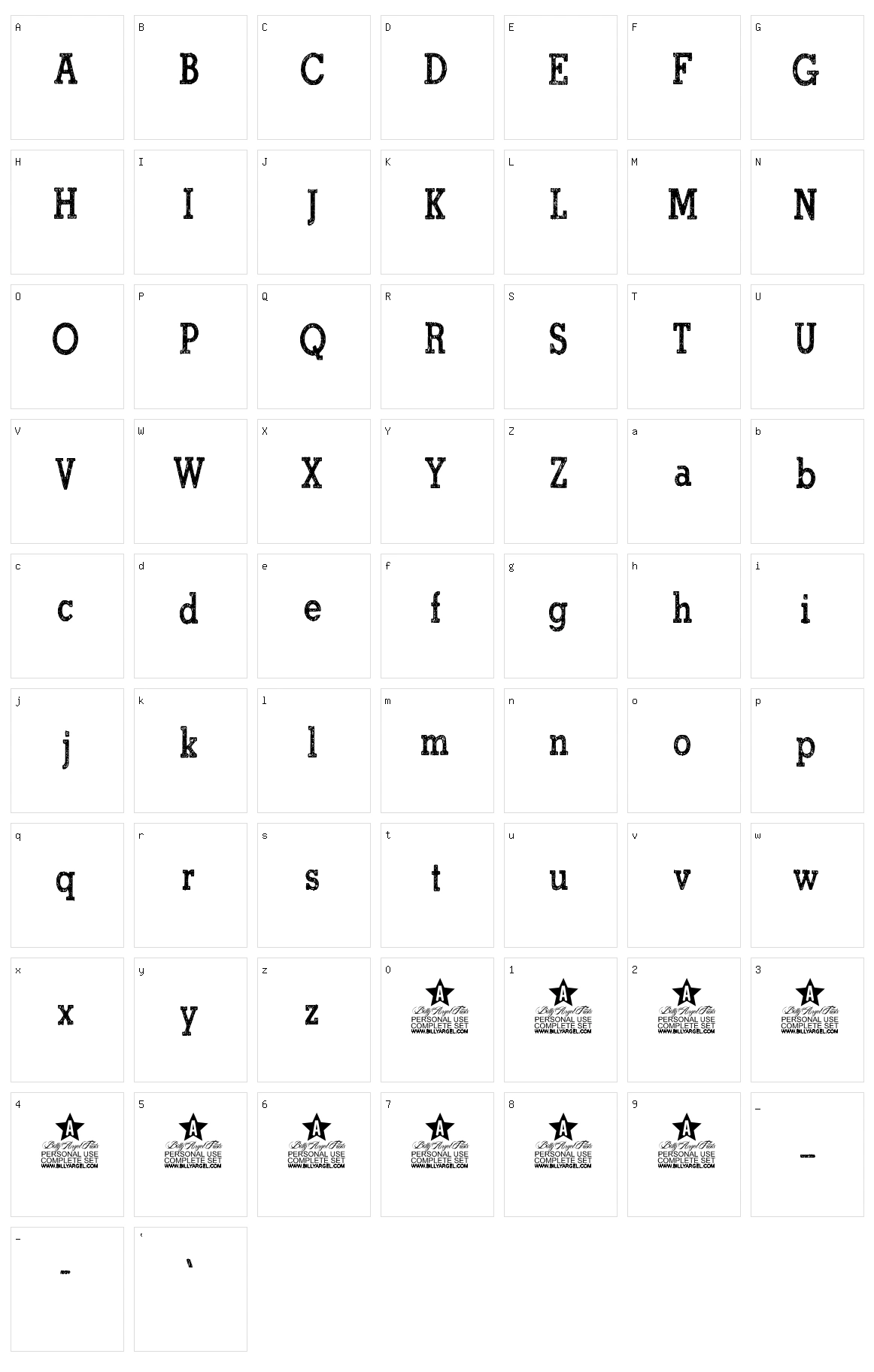
The free font North Shore is carefully designed by Billy Argel Fonts ®, showcasing a thoughtful balance of creativity and usability and falls under the Eroded font style. When you download the ZIP file, it contains only 402.04 KB of font files, making it lightweight and quick to download. Please review the license details below to understand permitted usage and distribution rights. If license information is not available, we recommend using this font for personal projects only or contacting the author directly for commercial usage permissions.